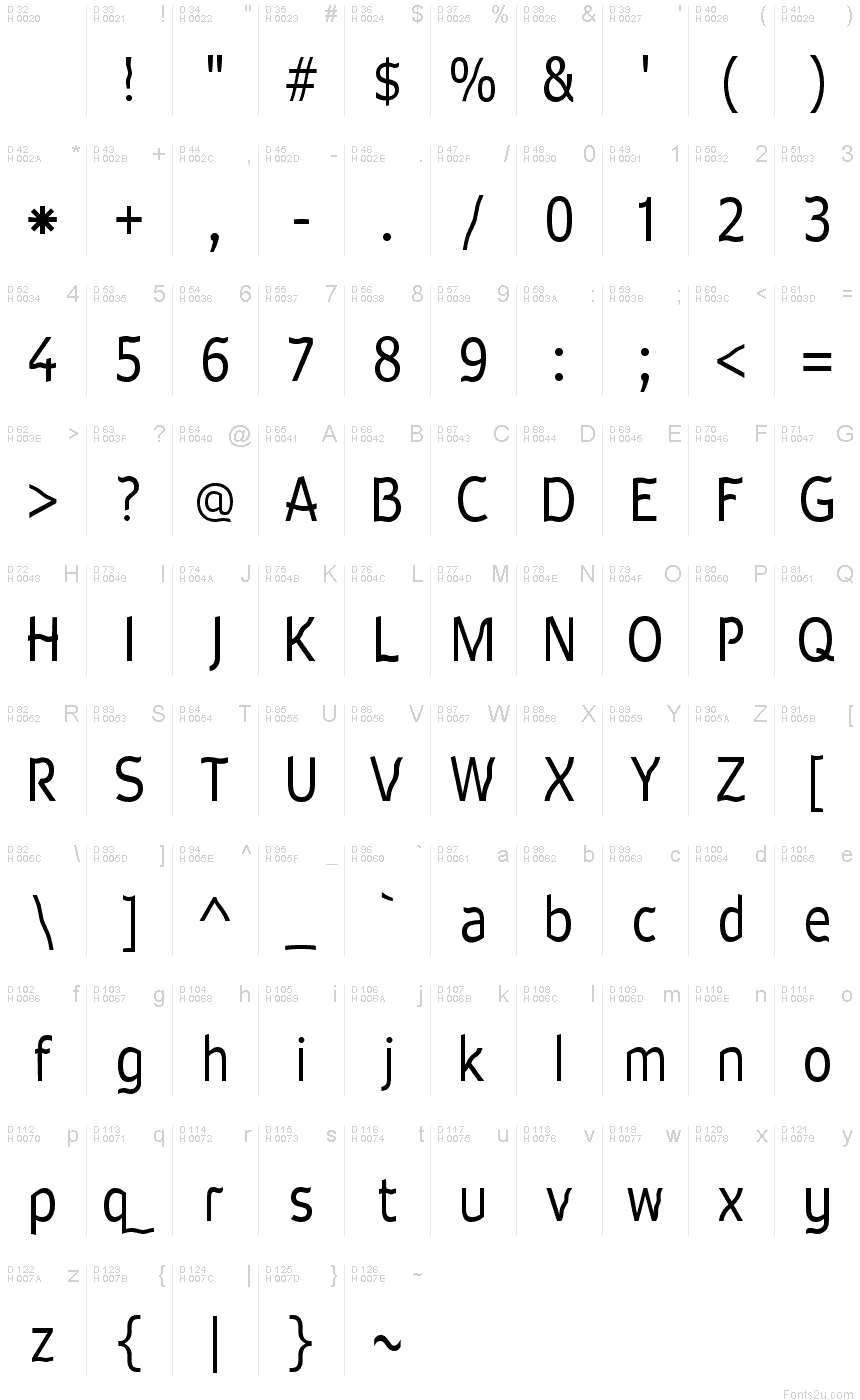
Waverley by Keith Bates of K-Type is a free distorted sans serif display font with tall, wavering letters and uneven strokes. Soft curves, pinched joins, and shifting widths make these simple forms look hand-stretched and slightly restless.
The bending outlines echo fluid line drawings, which makes the font apt for illustrated posters and music packaging. It also suits quirky event graphics. In editorial design, its irregular silhouettes can turn cover lines into artwork rather than neutral captions.